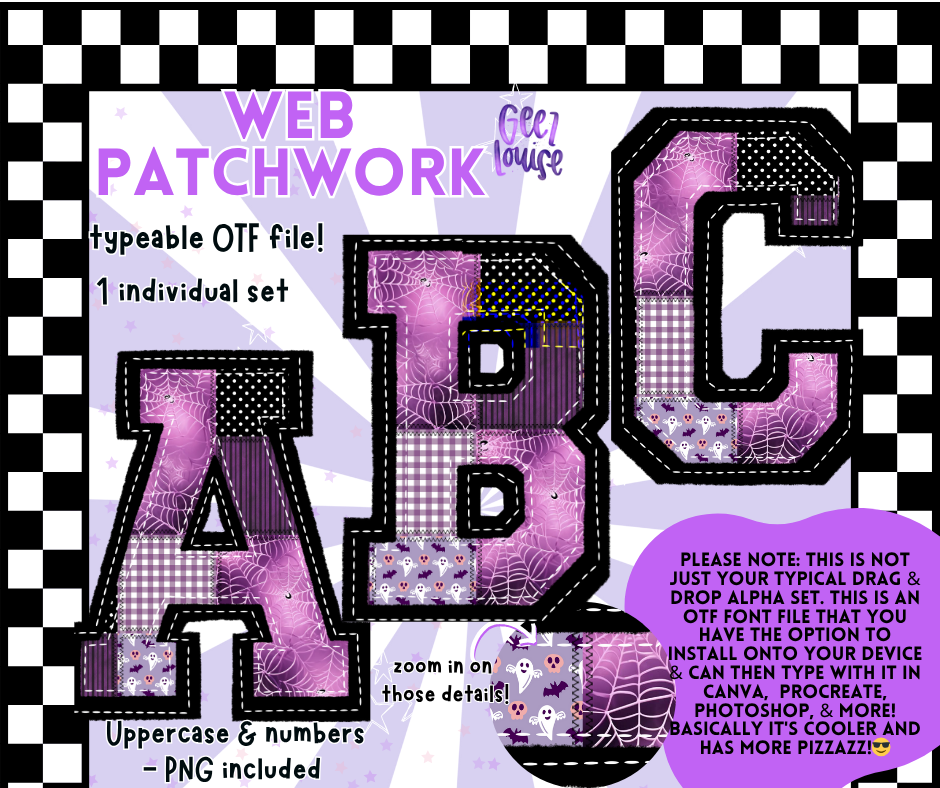
Bring stitched chaos and Halloween charm to your fonts with Web Patchwork — a spooky alpha set bursting with purple spiderwebs, polka dots, ghosts, and gingham. Designed to look like a Halloween quilt you can type with.
🧵 Uppercase letters & numbers only
🧵 Bold stitched outline for extra patchwork flair
Perfect for October crafting, boo crew shirts, spooky product tags, or any cute-creepy design moment.